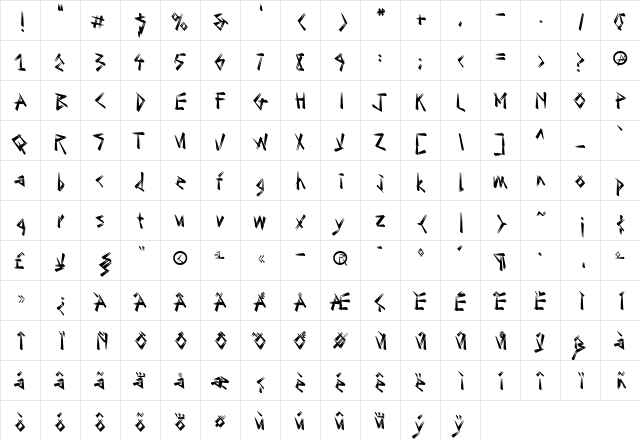
LTTiger BraveTwo Medium
Design Context for LTTiger BraveTwo Typeface
LTTiger BraveTwo is a composed and adaptable typeface that performs quietly and consistently across a wide range of design contexts.
Pro Tip: Use LTTiger BraveTwo in both headline and body roles to test its range before committing to a single application.